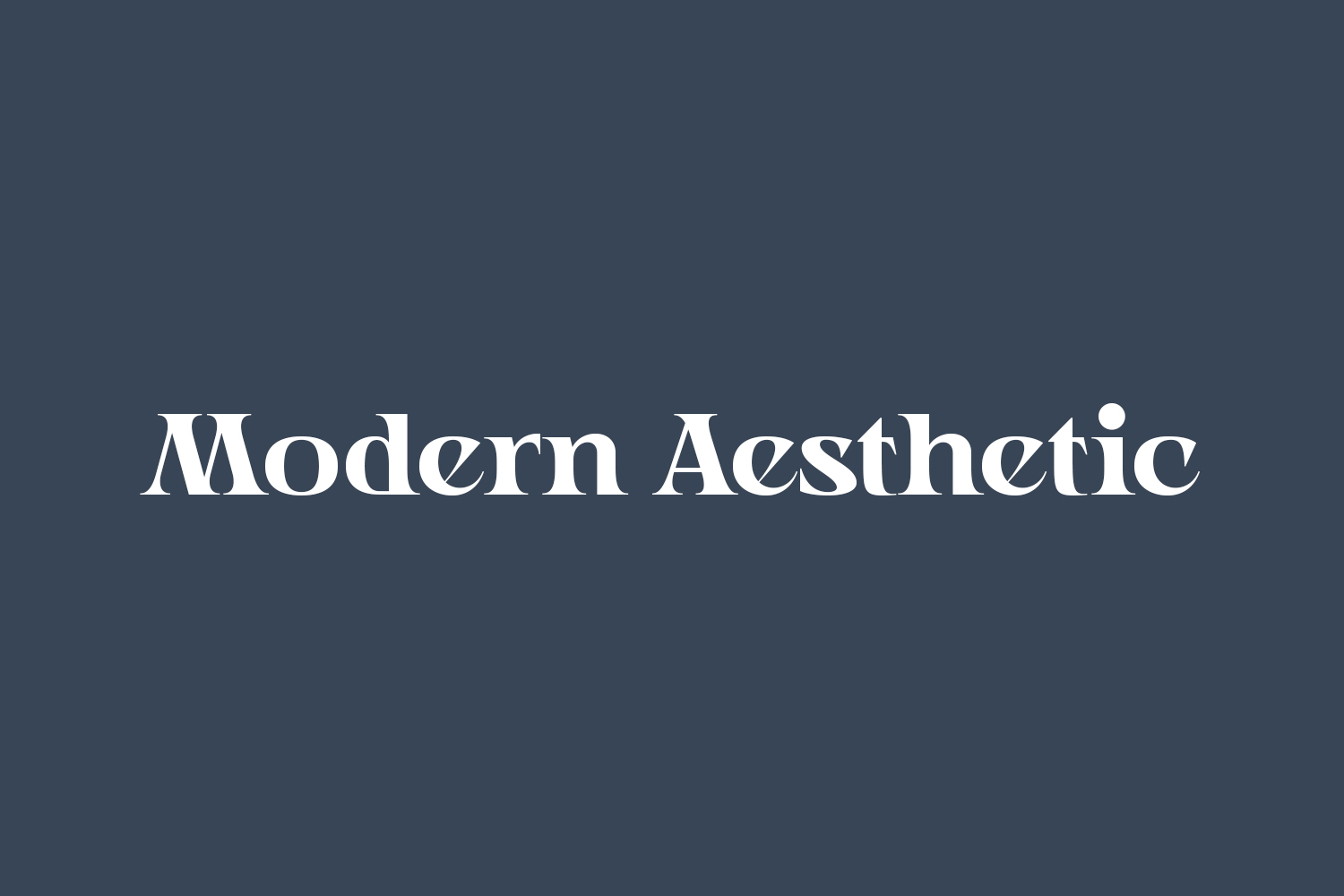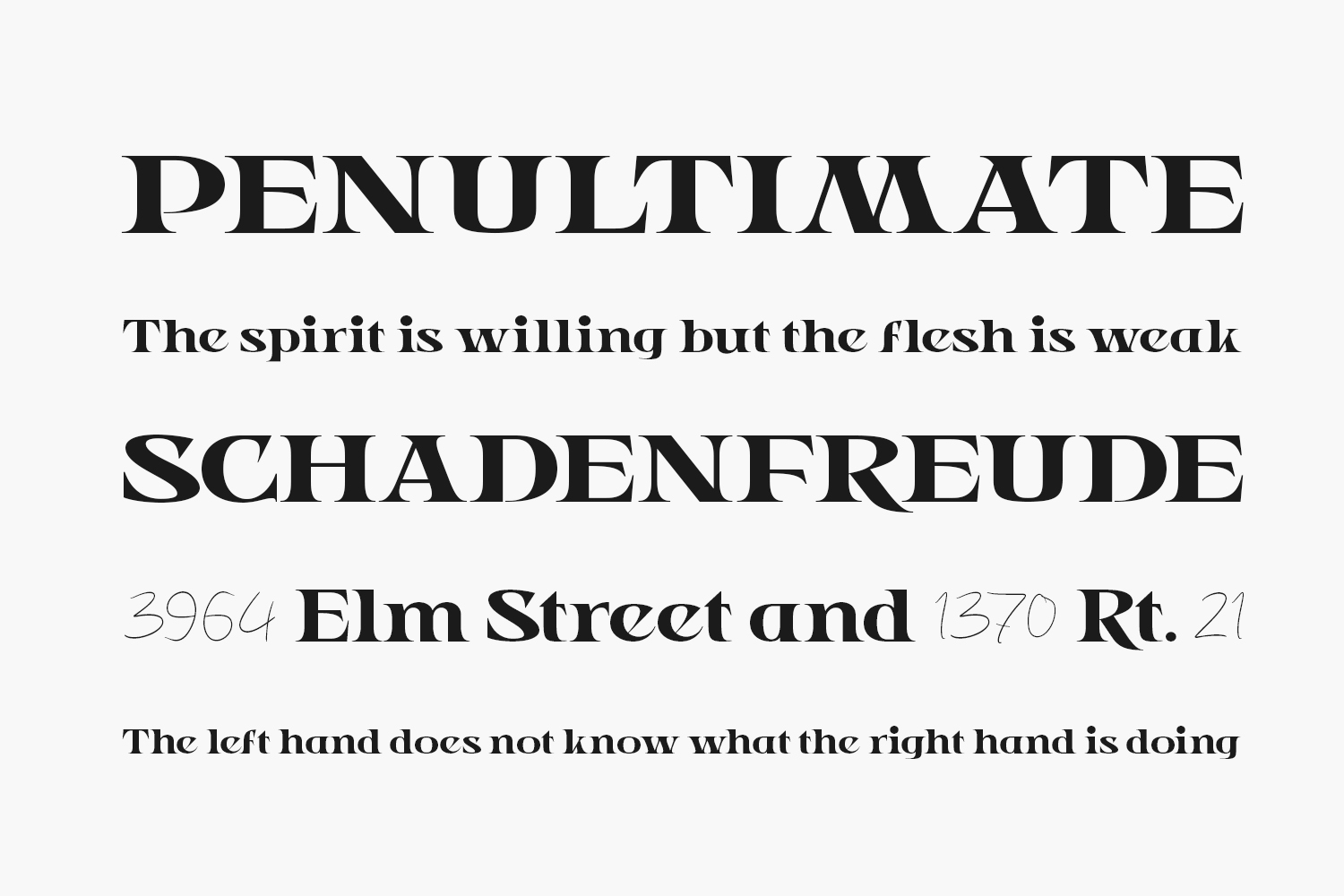
Modern Aesthetic Free Font presents a captivating typographic fusion perfect for a myriad of design ventures, encompassing logo creation, branding endeavors, social media campaigns, advertising ventures, and product designs. Download the font for free if you need it for personal use or purchase the full version for commercial use.
Designed by Nirmana Visual